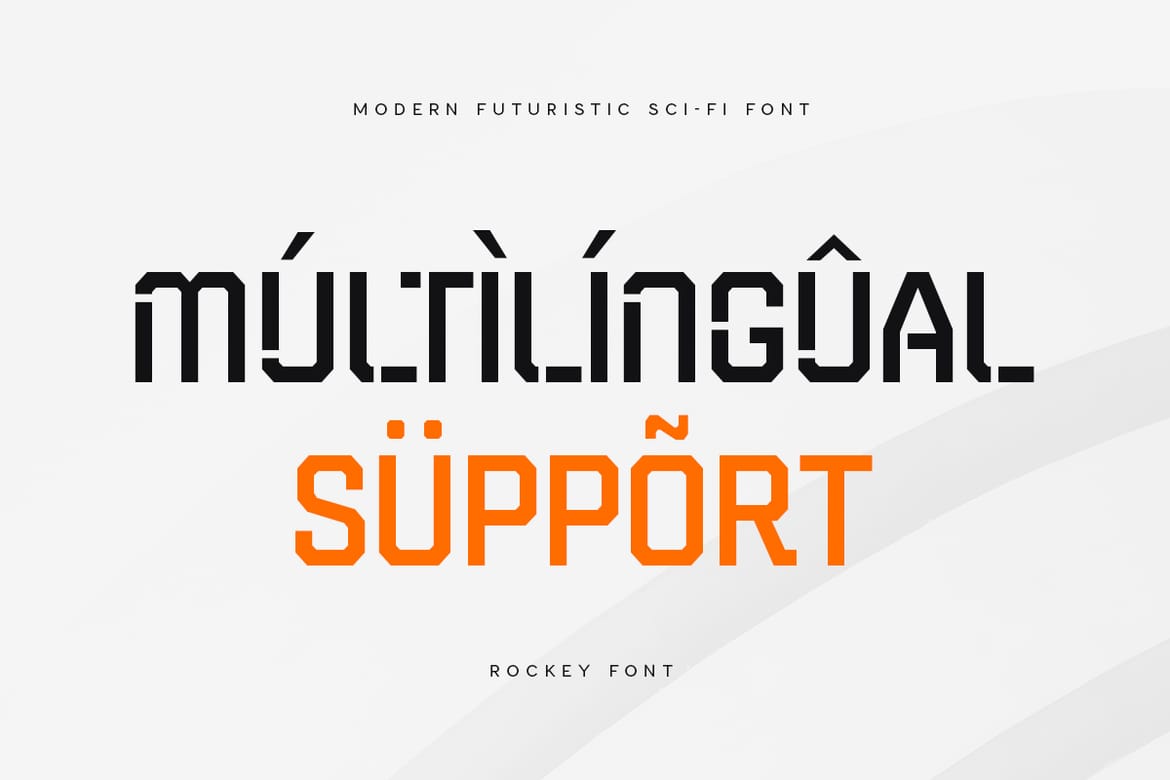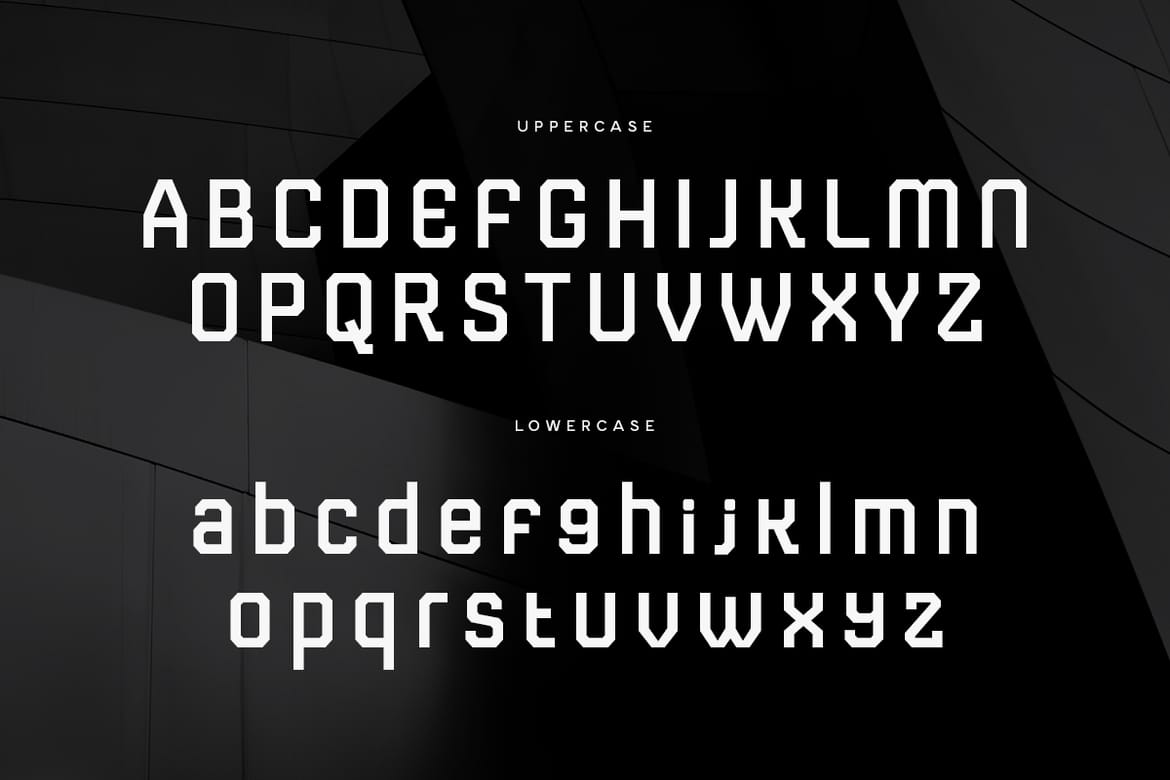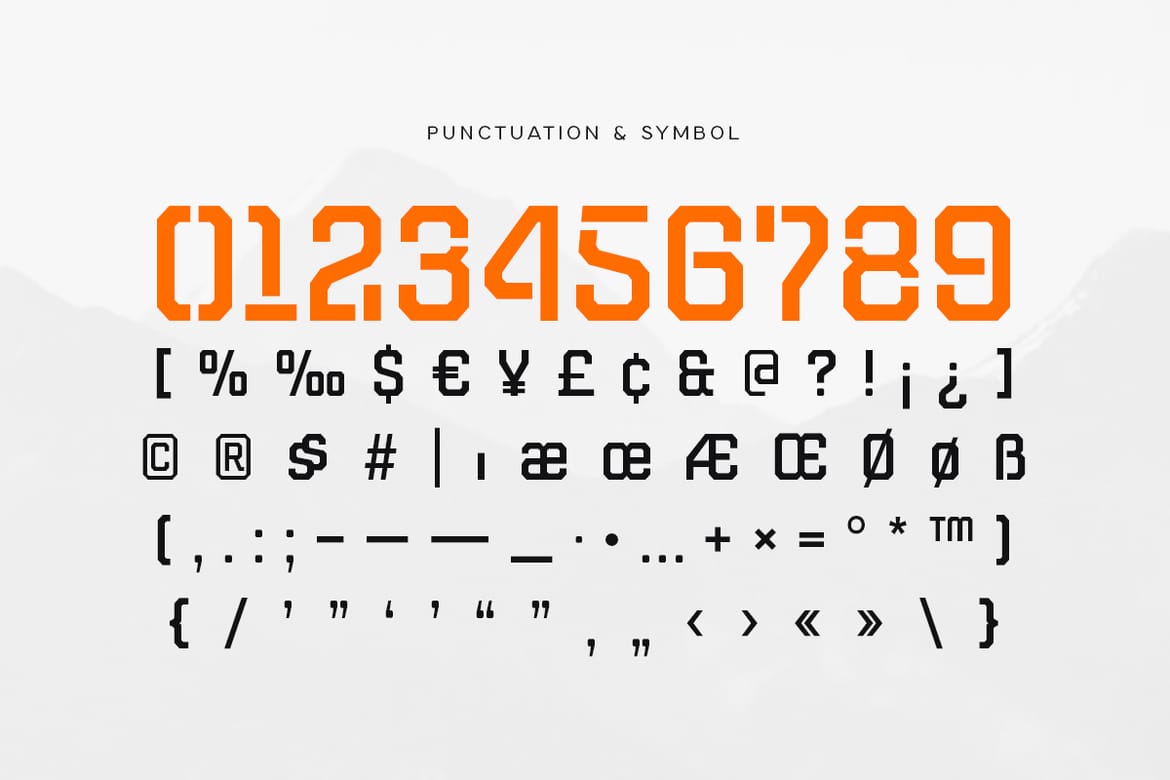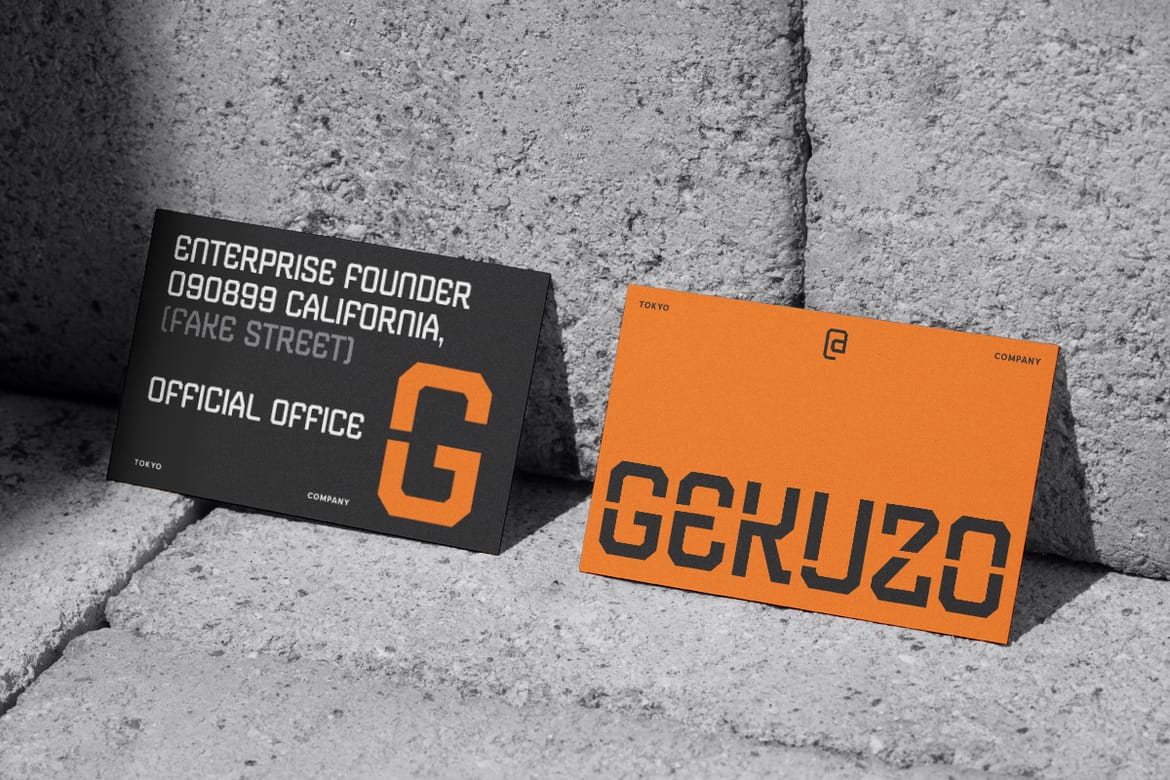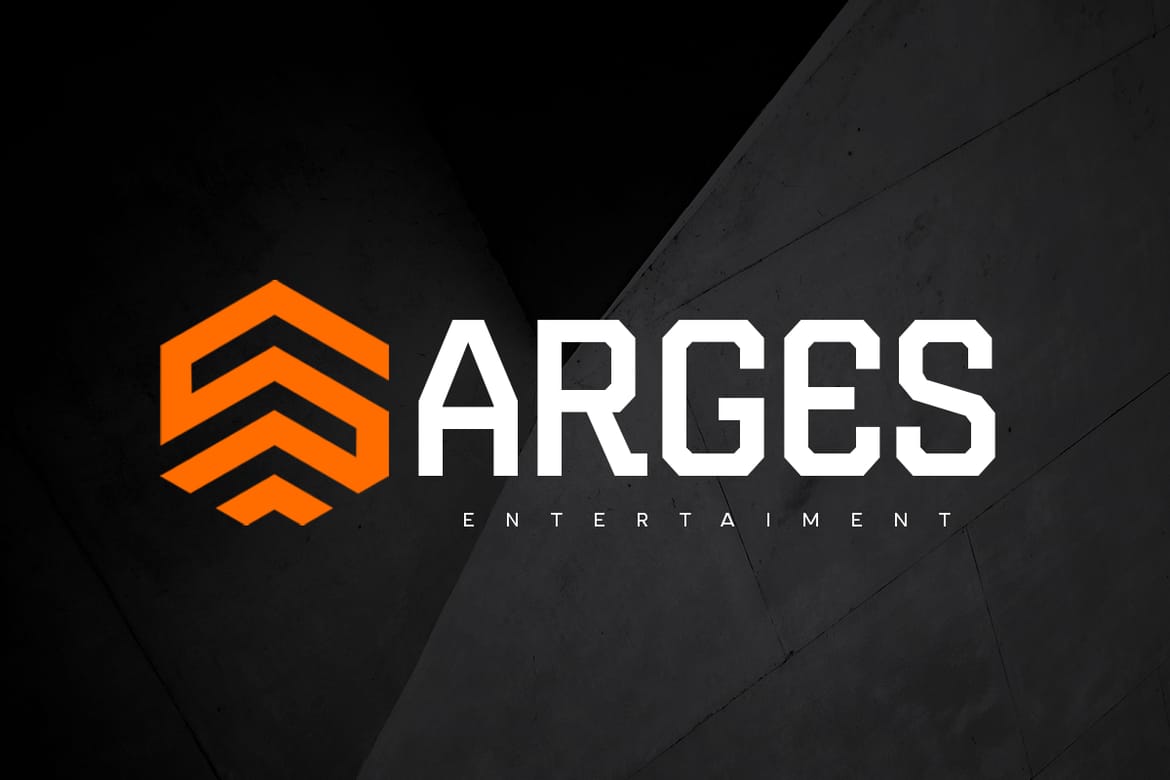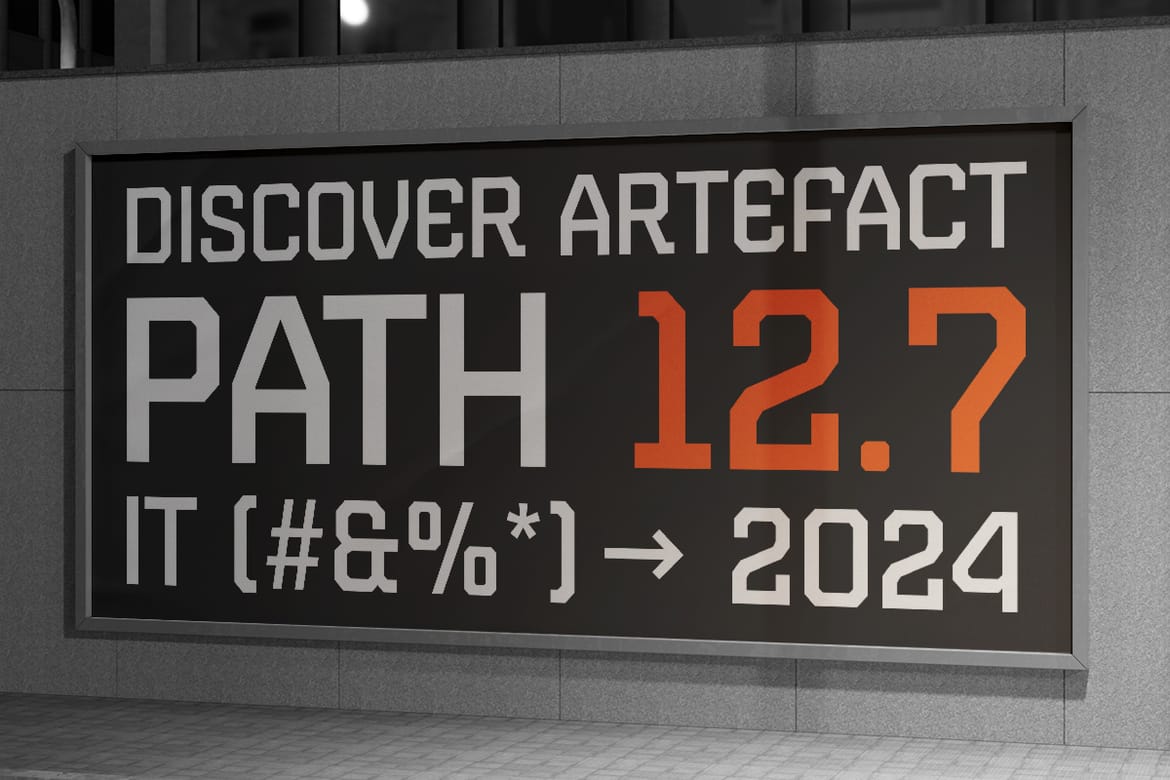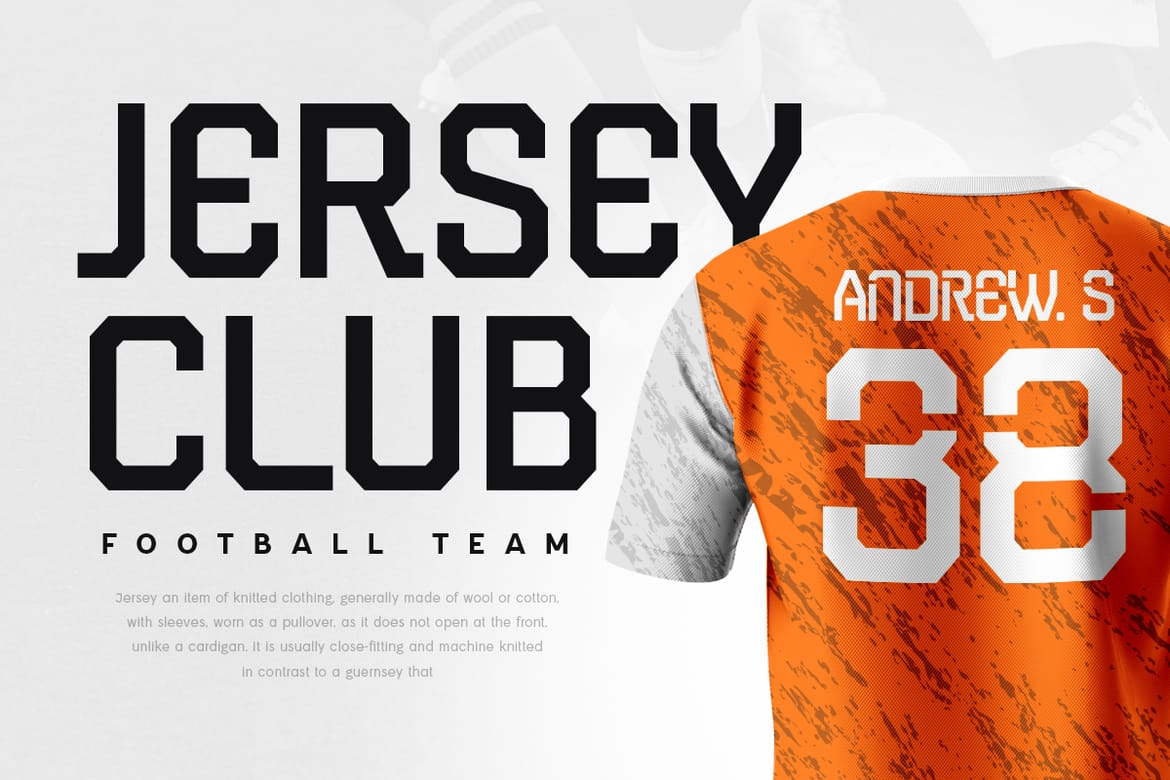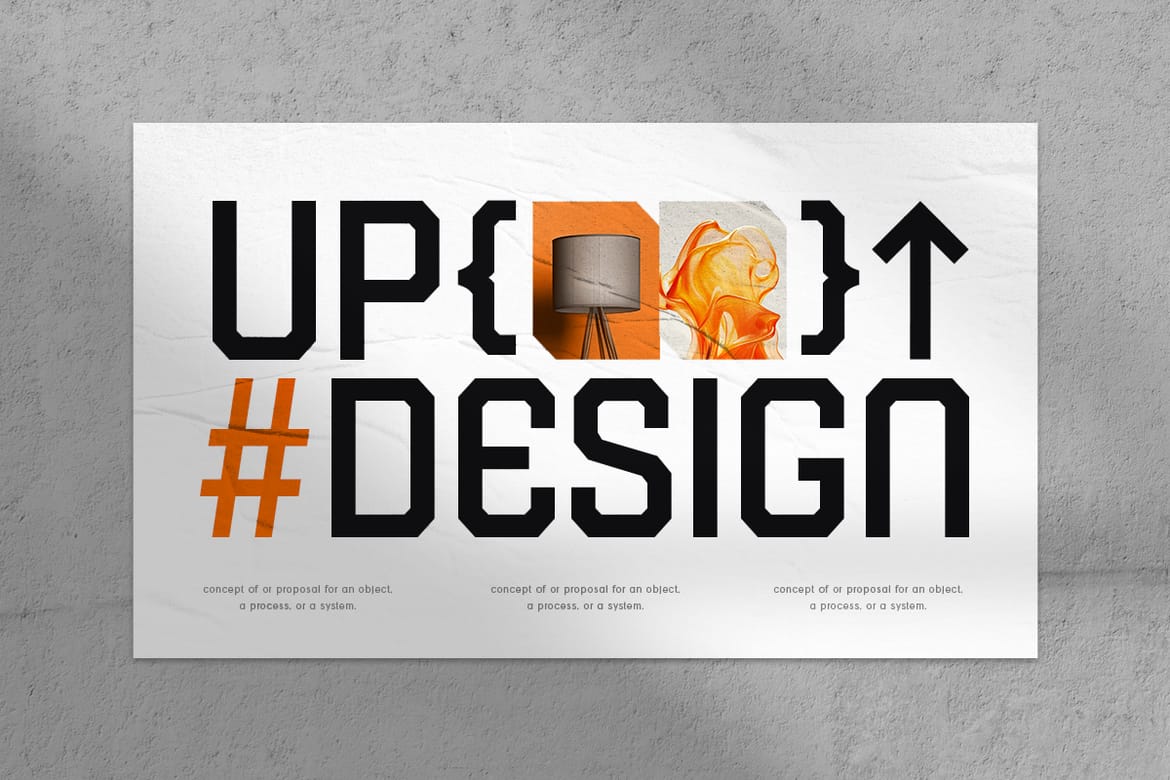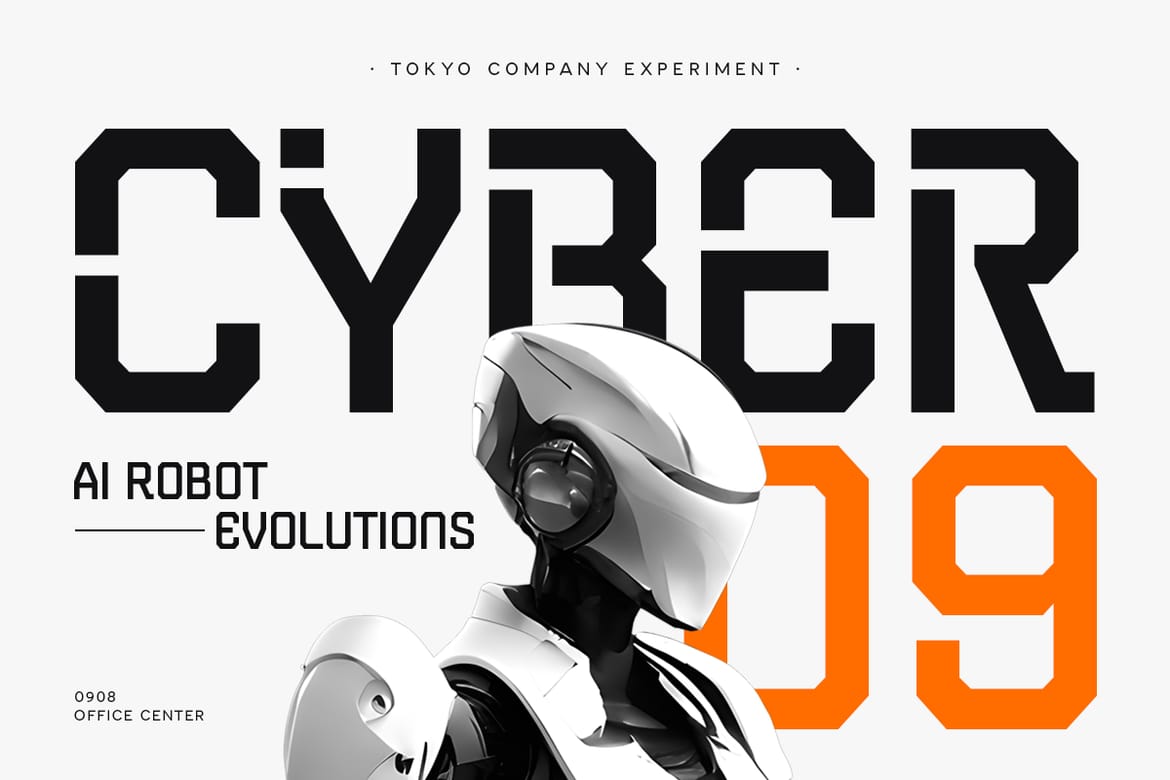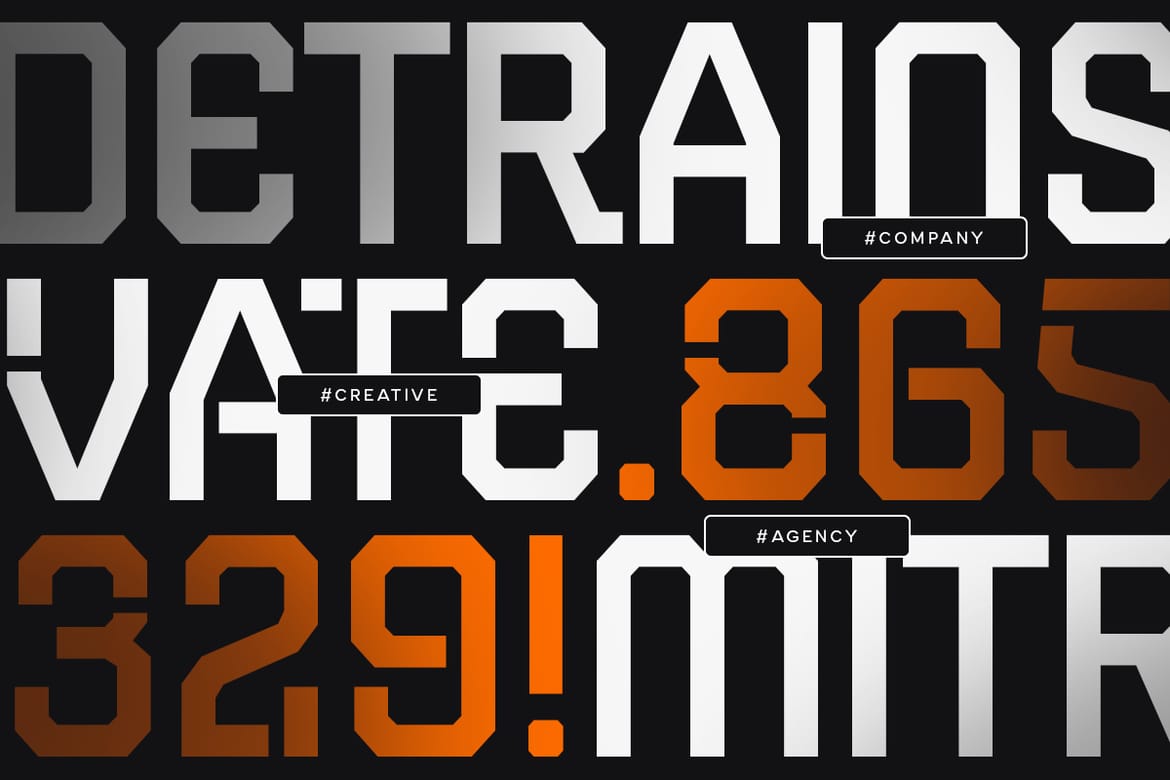
Rockey Modern Scifi Futuristic Font is a Modern Futuristic font are prepared special for Technology, Modern, and Futuristic design needs, that created special for Logo, Title and more stand out typography for futuristic and sci-fi. It's so perfect to add your style and headline overview for technology, film, space, and futuristic theme. And specially for this font, we've ready for modern feels so enjoy to create any project that will show your main idea out.
Rockey Modern Scifi Futuristic Font ready with:
Ready with Uppercase and Lowercase Characters
Include Regular and Stencil Style
Preview as a inspirations that you can do with Rockey font
Perfect for Futuristic Sci-fi Design
- Futuristic sci-fi display font
- Regular and stencil styles included